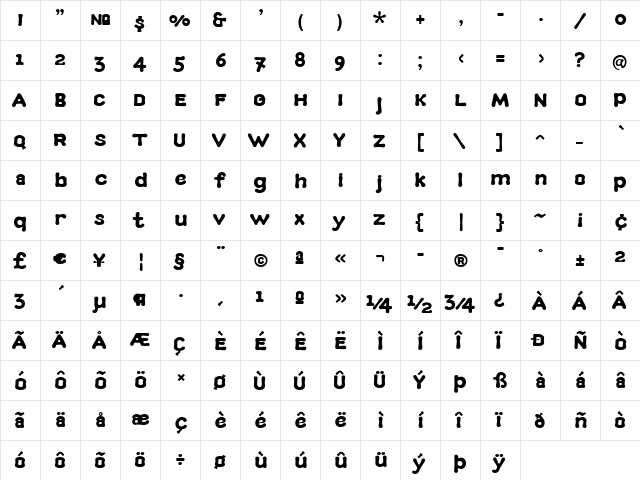
Terylene Regular
Design Context for Terylene Typeface
Terylene is a composed and adaptable typeface that performs quietly and consistently across a wide range of design contexts.
Pro Tip: Pair Terylene with a font of contrasting weight or personality to build a more expressive typographic hierarchy.